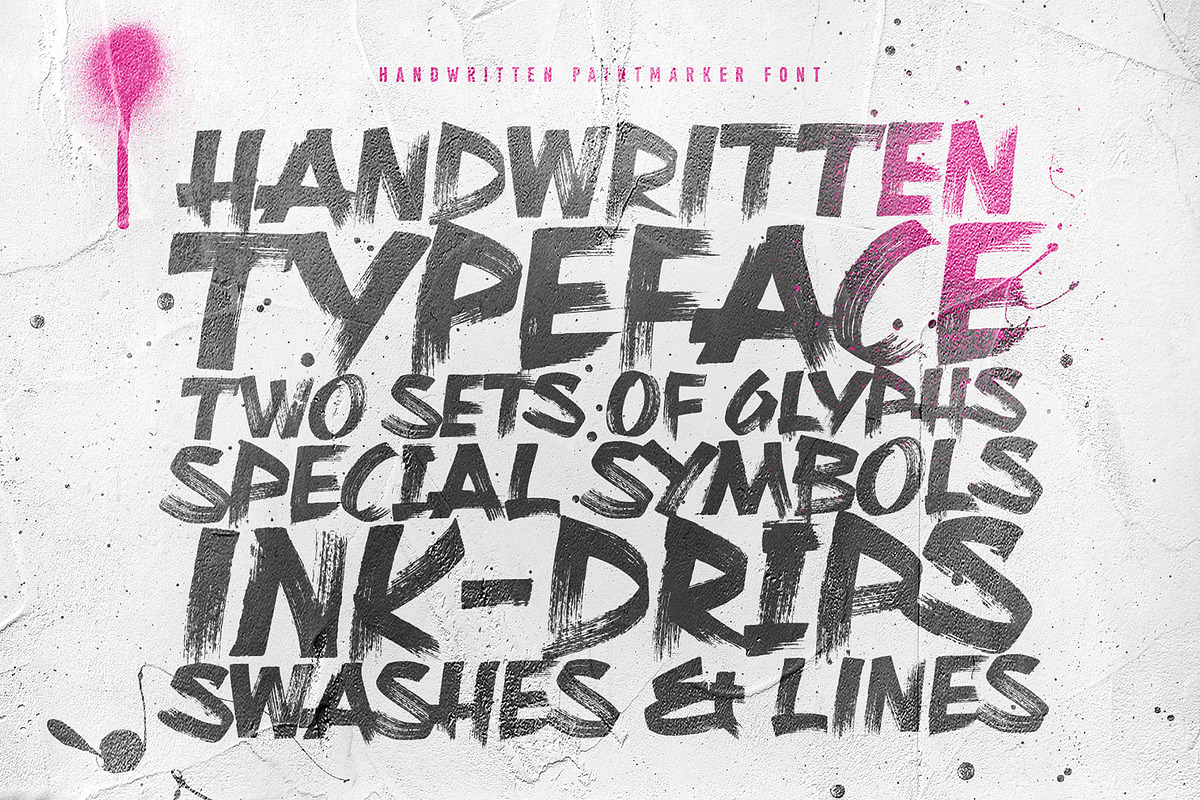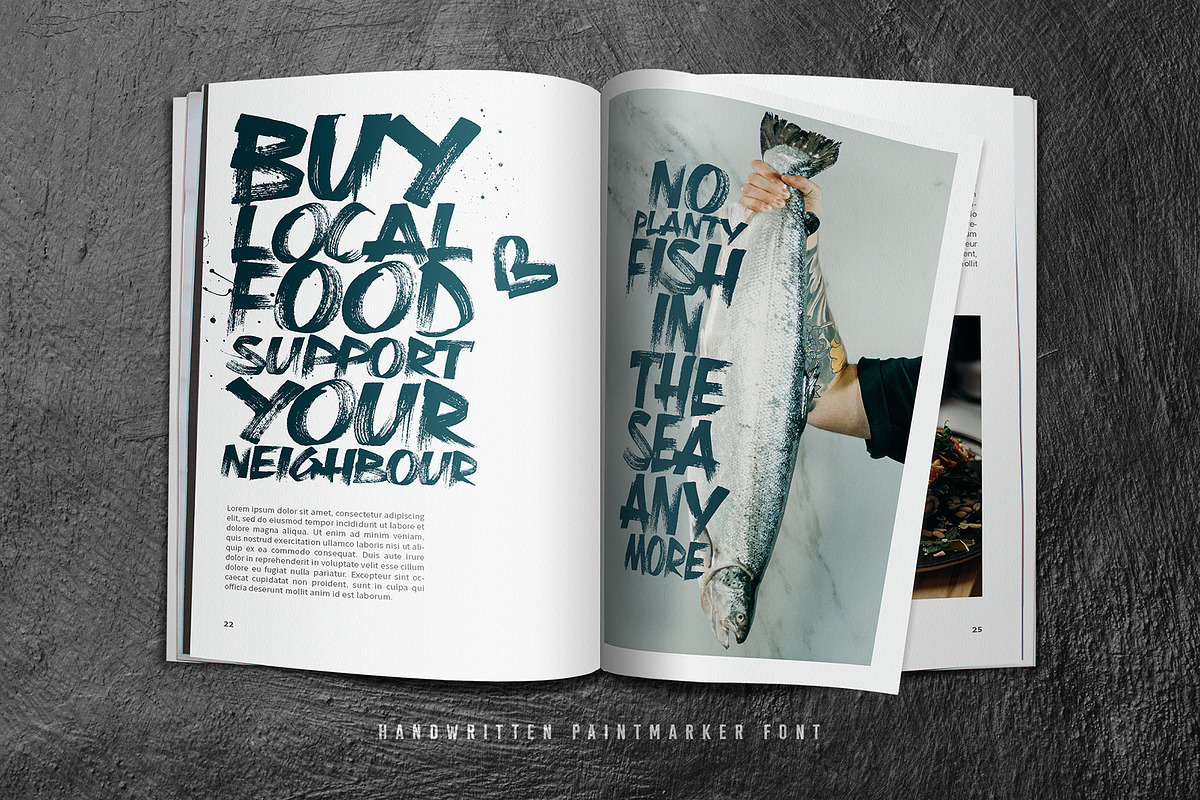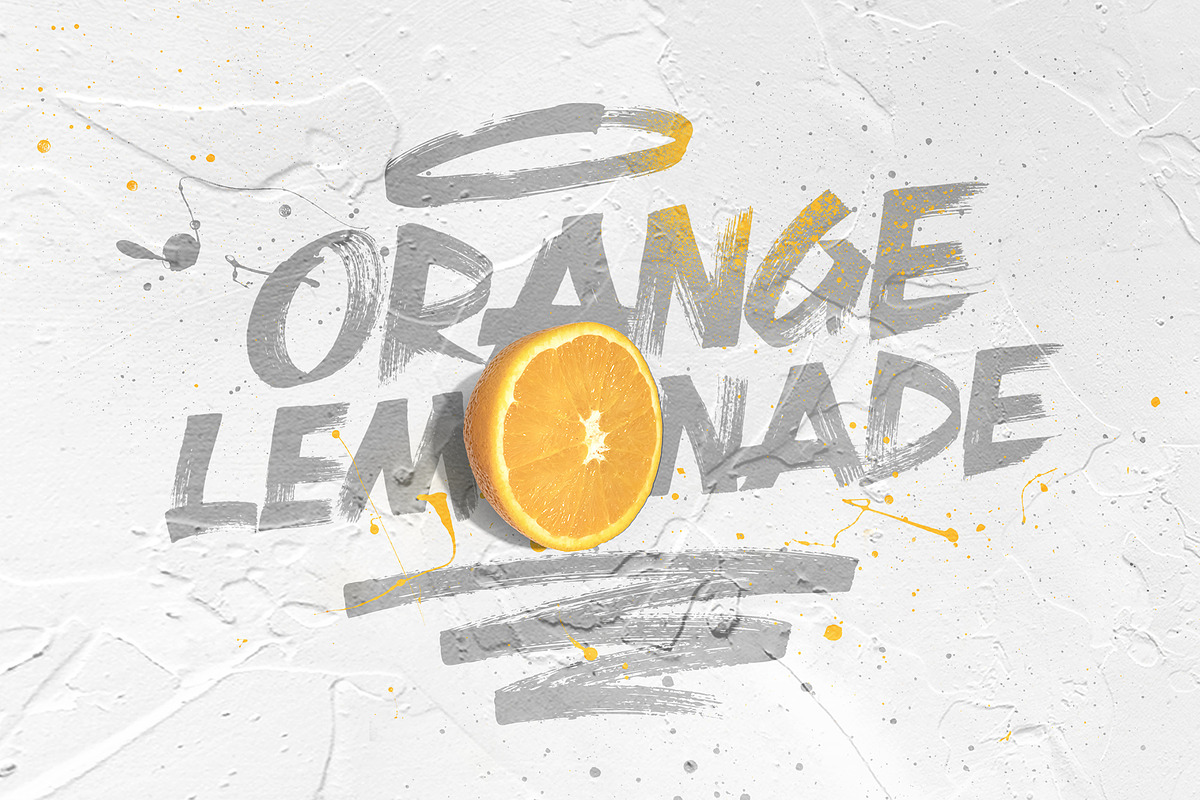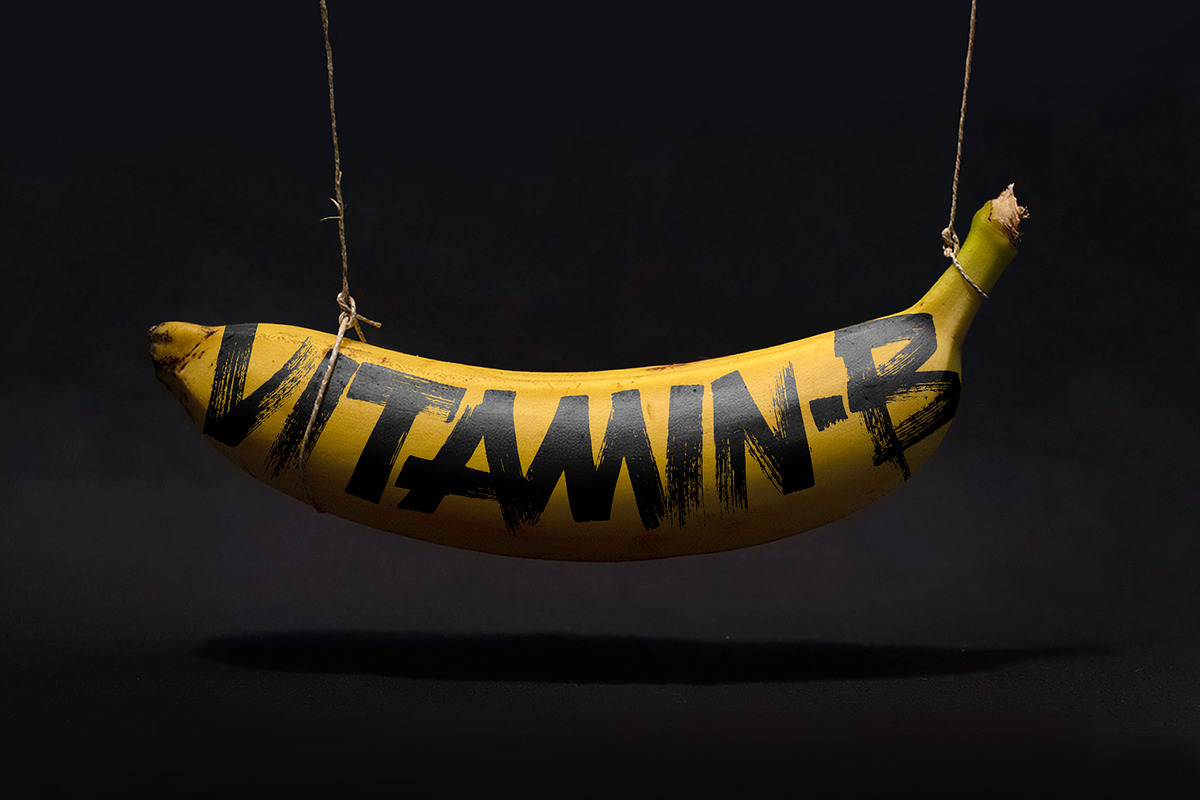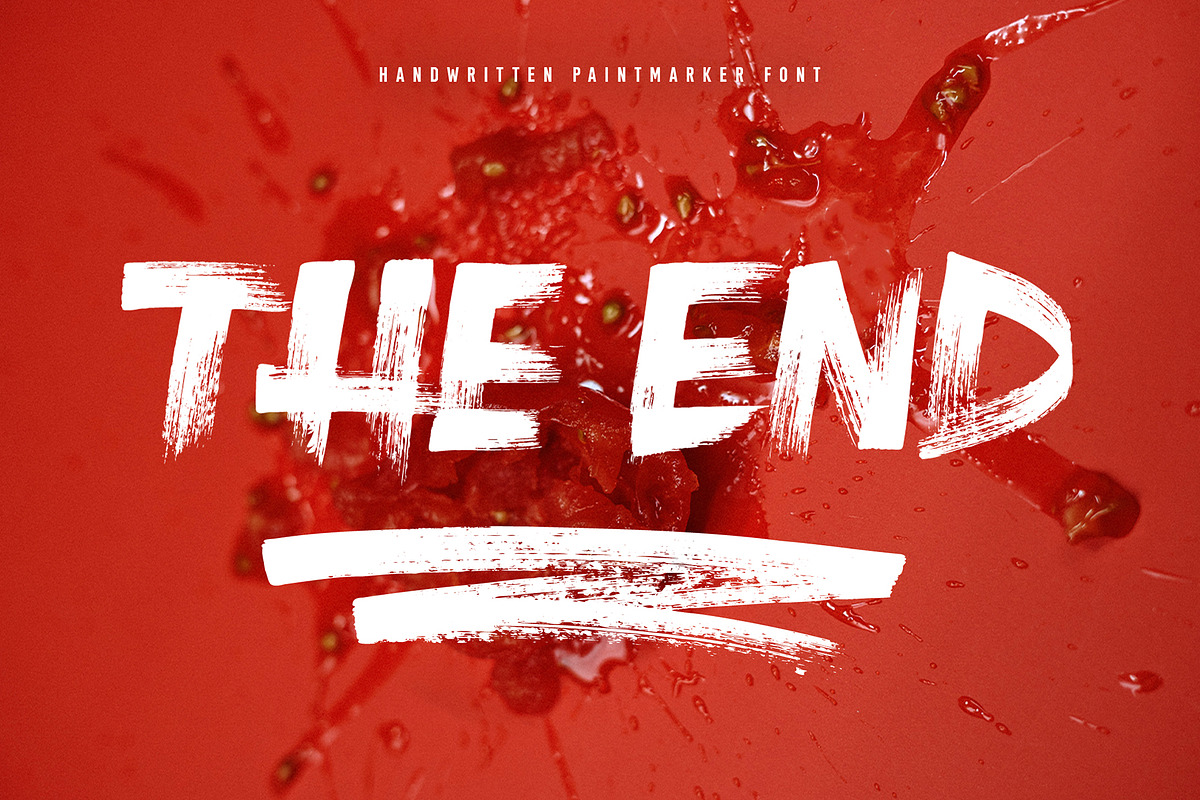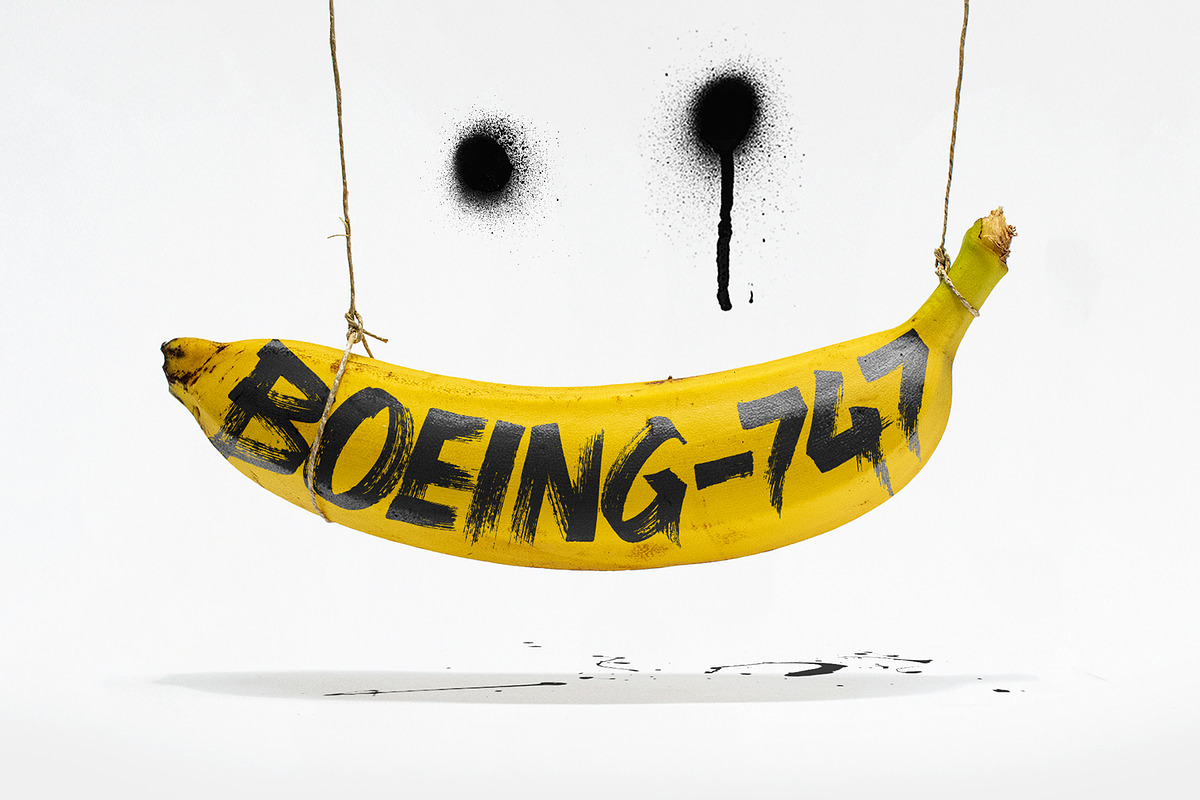
Rough Marker
“Rough Marker” is a bold and stylish handwritten fontface. It comes in 2 variation of letters, swashes & lines, ink drips and some bonus symbols.